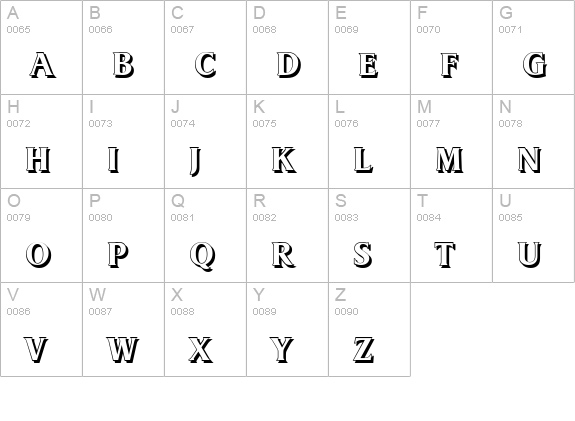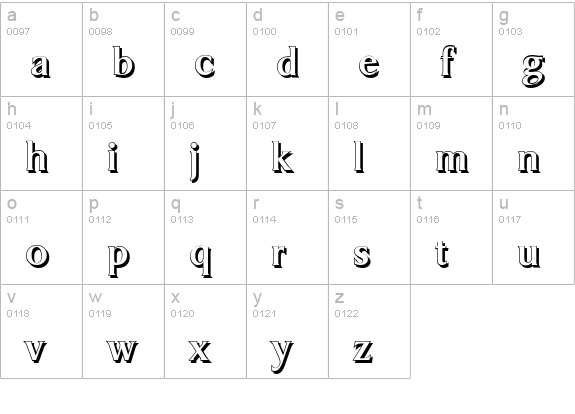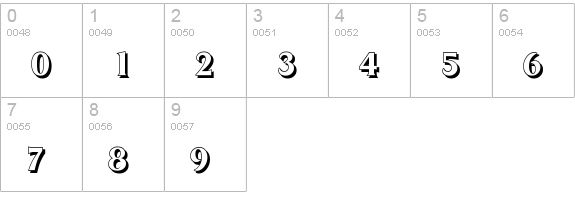
DragonShadow-Bold Font Details
DragonShadow-Bold is a strong, high-contrast variant in the DragonShadow typeface family \xE2\x80\x94 well suited to headlines, attention-grabbing titles, and strong calls-to-action.